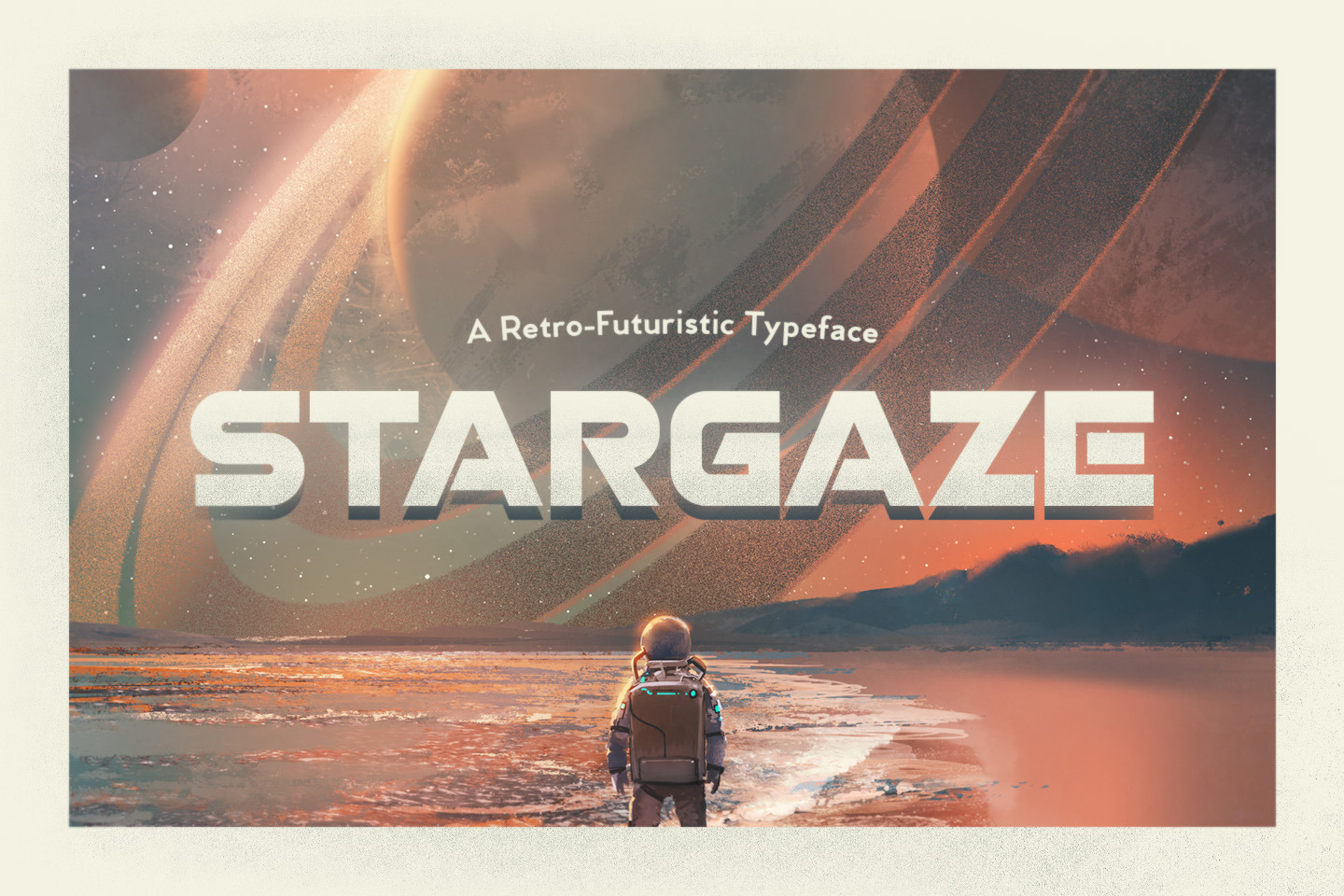
Stargaze Typeface
Stargaze is a retro futuristic typeface in regular and stencil formats. The font has a bold and big vibe and mixes sharp and round corners, kind of like the very old sci-fi movie titles.
Stargaze includes uppercase multilingual letters, numbers and punctuation. Some of the stencil letters also have reversed versions which are toggleable via caps lock.